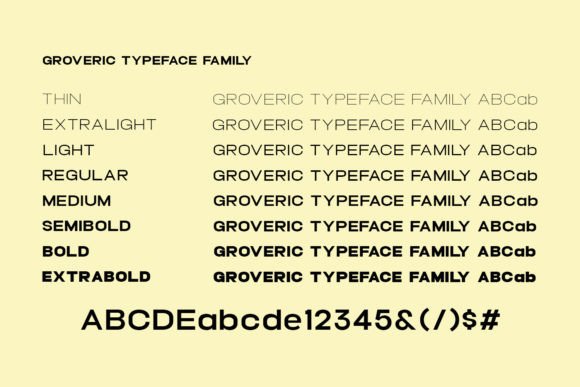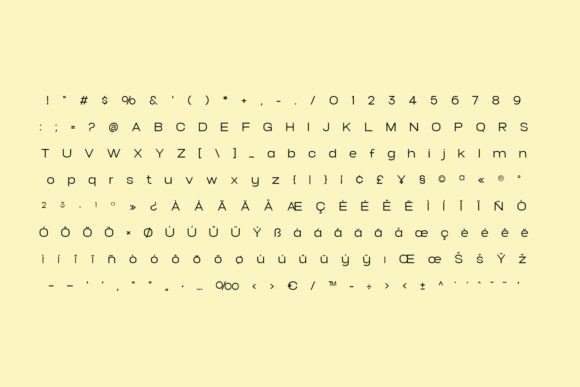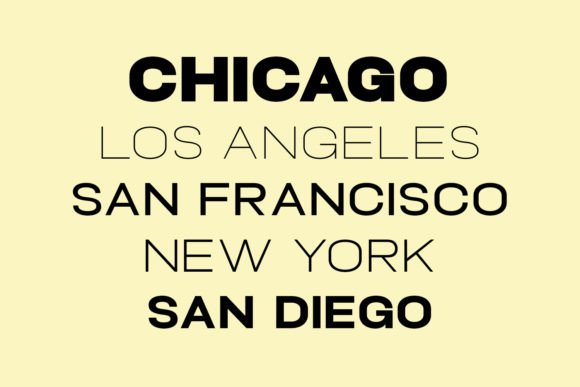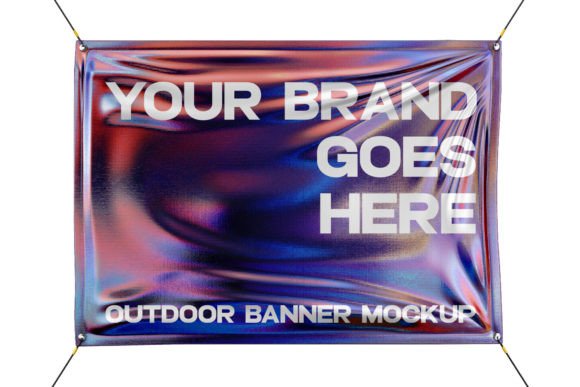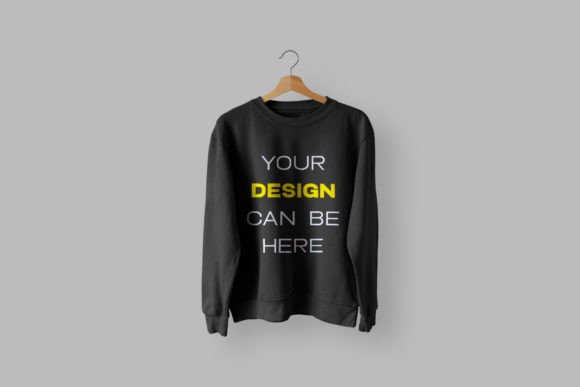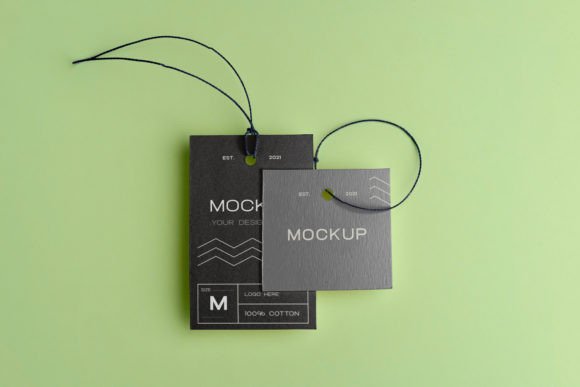
Introducing Groveric Font: The Ultimate Modern Display Typeface
Are you tired of using the same old fonts for your designs? Look no further! Groveric Font is here to revolutionize the way you create stunning visual content. This modern display typeface is designed to impress, with clean lines and sharp edges that will elevate your designs to the next level.
What Makes Groveric Font So Special?
Groveric Font is an extremely versatile font that can be used for a wide range of design projects. Whether you’re creating a logo, wedding invitation, quote, advertisement, or magazine spread, this font is perfect for the job. Its clean and modern aesthetic makes it ideal for designers and crafters who want to add a touch of sophistication to their work.
Key Features of Groveric Font
- Clean Lines and Sharp Edges: Groveric Font boasts clean lines and sharp edges, giving it a crisp and modern look that’s perfect for display text.
- Versatility: This font can be used for a wide range of design projects, from logos and invitations to quotes and advertisements.
- Easy to Read: Despite its modern aesthetic, Groveric Font is easy to read, making it perfect for body text as well as display text.
- Scalable: This font is highly scalable, meaning it looks great at any size, from small captions to large headlines.
Groveric Font is a must-have for designers and crafters who want to add a touch of modern sophistication to their work. Whether you’re creating:
- Logos: Use Groveric Font to create a bold and memorable logo that will help your brand stand out.
- Wedding Invitations: Add a touch of elegance to your wedding invitations with this beautiful font.
- Quotes: Use Groveric Font to create inspiring and motivational quotes that will grab attention.
- Advertisements: This font is perfect for creating eye-catching advertisements that will drive results.
- Print and Magazines: Use Groveric Font to add a modern touch to your print materials, from brochures to magazine spreads.
Here are some tips for getting the most out of Groveric Font:
- Experiment with Different Sizes: Try using Groveric Font at different sizes to see how it looks in various contexts.
- Play with Colors: This font looks great in a range of colors, so don’t be afraid to experiment and find the perfect hue for your design.
- Pair it with Other Fonts: Groveric Font pairs well with a range of other fonts, so try combining it with different typefaces to create a unique look.
Groveric Font is a stunning modern display typeface that’s perfect for designers and crafters who want to add a touch of sophistication to their work. With its clean lines, sharp edges, and versatility, this font is sure to become a go-to in your design arsenal. So why wait? Download Groveric Font today and start creating stunning visual content that will leave a lasting impression!